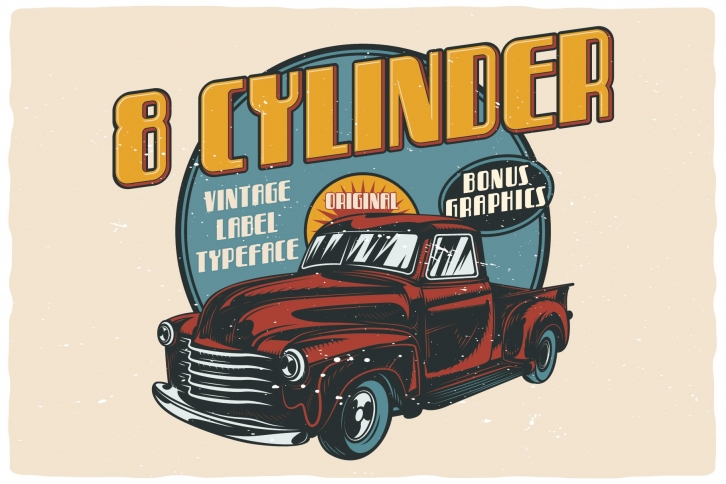
Eight Cylinder Layered Font Download
Eight Cylinder Layered is a beautiful font that was designed by Vozzy Vintage Fonts And Graphics. It's a great choice for designers and creatives who need such a font. It was released on October 23, 2020 and the file size is 7.36 MB. Eight Cylinder Layered may give a more youthful, expressive and casual look to your project. It is a very beautiful, refined, elegant, and high-quality font.